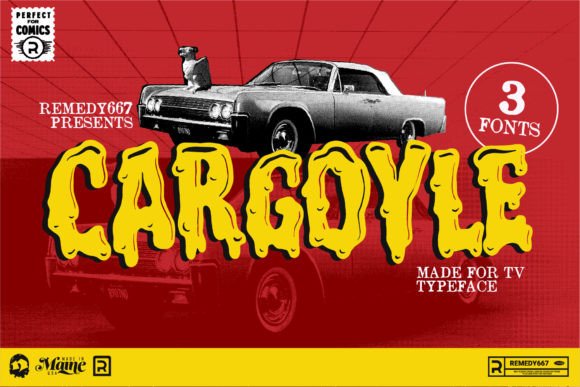
Cargoyle Font: The Ultimate Horror Typeface for Your Creepy Projects
Are you looking for a font that exudes horror and terror? Do you want to give your work a 90s teen horror feel that will send shivers down the spine of your audience? Look no further than the Cargoyle font. This dripping blood and oozing horror typeface is perfect for any project that requires a spooky touch. In this article, we’ll explore the features of the Cargoyle font and how you can use it to add a splash of terror to your work.
What is Cargoyle Font?
Cargoyle font is a unique typeface that features three layers to “ooze” from, giving it a distinctive and eerie appearance. The font is designed to resemble blood-drenched letters, perfect for creating a horror or thriller theme. With its bold and dripping design, Cargoyle font is sure to grab the attention of your audience and leave a lasting impression.
Uses of Cargoyle Font
Cargoyle font is versatile and can be used for a variety of projects, including:
- Halloween Decorations: Add a spooky touch to your Halloween decorations, such as invitations, posters, and banners.
- Resume: Give your resume a thriller touch and stand out from the crowd.
- Novel or Book Cover: Add a splash of terror to your latest novel or book cover.
- Movie or Video Game Titles: Create creepy and eerie titles for your movie or video game.
- Marketing Materials: Use Cargoyle font to create eye-catching marketing materials, such as brochures, flyers, and posters.
Benefits of Using Cargoyle Font
Using Cargoyle font for your projects offers several benefits, including:
- Unique and Eye-Catching: Cargoyle font is unlike any other font, making it perfect for grabbing the attention of your audience.
- Horror and Thriller Theme: The font’s design is perfect for creating a horror or thriller theme, making it ideal for Halloween decorations, movie titles, and book covers.
- Versatile: Cargoyle font can be used for a variety of projects, from marketing materials to novel covers.
Tips for Using Cargoyle Font
Here are some tips for using Cargoyle font effectively:
- Use it Sparingly: While Cargoyle font is eye-catching, it can be overwhelming if used excessively. Use it sparingly to create a greater impact.
- Pair it with Other Fonts: Pair Cargoyle font with other fonts to create a unique and visually appealing design.
- Adjust the Size and Color: Experiment with different sizes and colors to create a design that stands out.
- Use it for Headlines: Use Cargoyle font for headlines and titles to create a bold and eye-catching design.
Cargoyle font is a unique and eye-catching typeface that is perfect for adding a horror or thriller touch to your projects. With its three layers to “ooze” from, this font is sure to grab the attention of your audience and leave a lasting impression. Whether you’re working on a Halloween decoration, a novel cover, or a marketing material, Cargoyle font is a great choice. So, why settle for a boring font when you can add a splash of terror to your work with Cargoyle font?